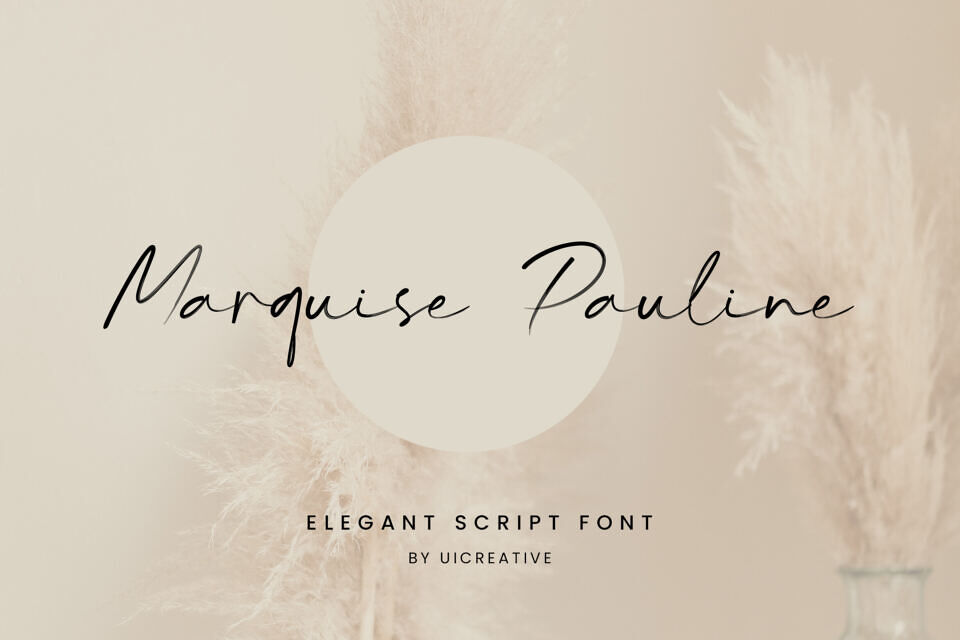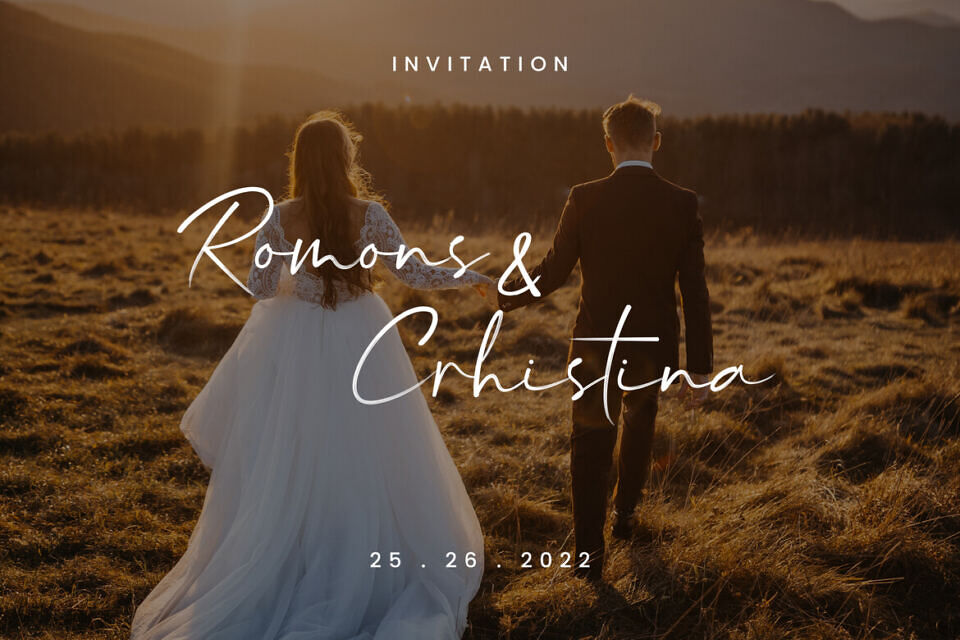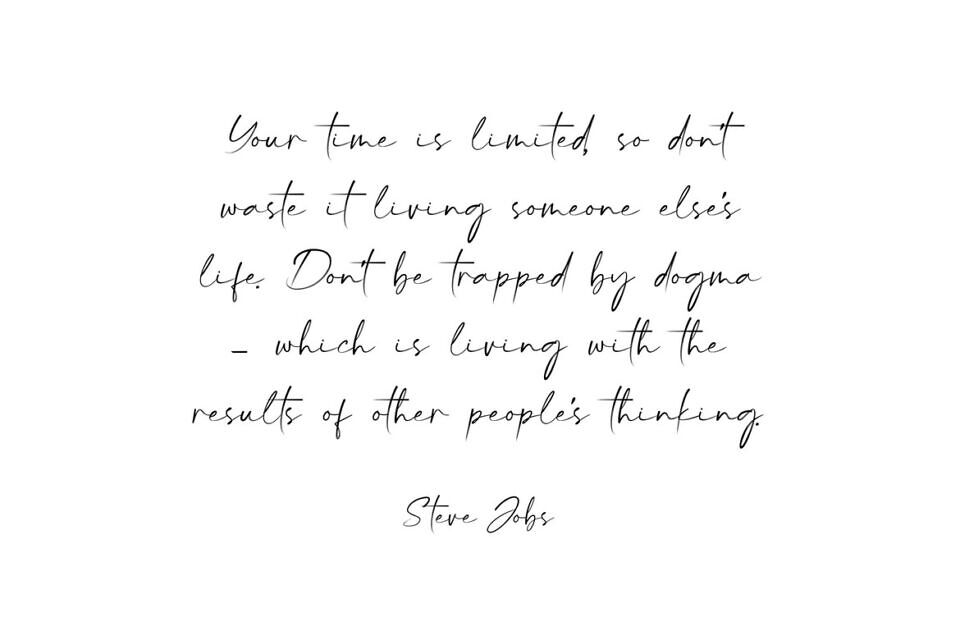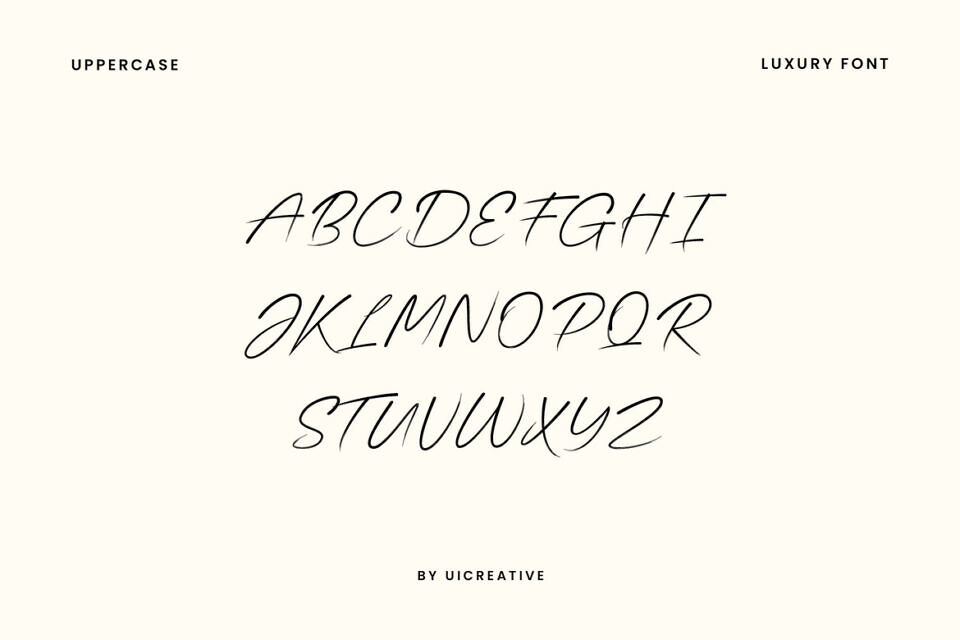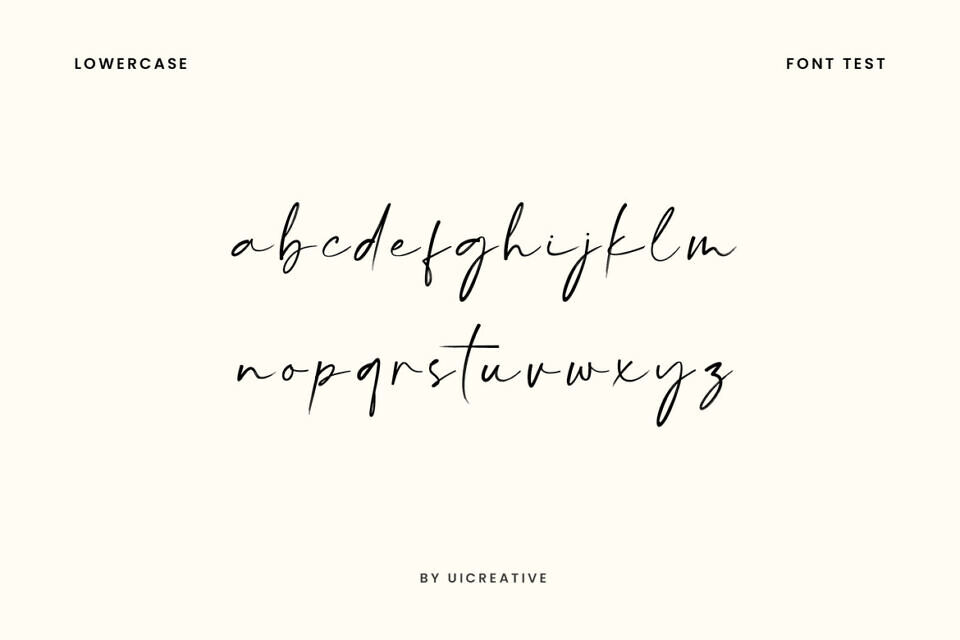
Marquise Pauline is a sophisticated script font with a touch of elegance. Its classic style makes it perfect for various projects, from logos and wedding designs to magazine covers and website headers.
This versatile font blends masculine and feminine qualities, making it ideal for fashion branding and editorial design, exuding a sense of refinement and style.